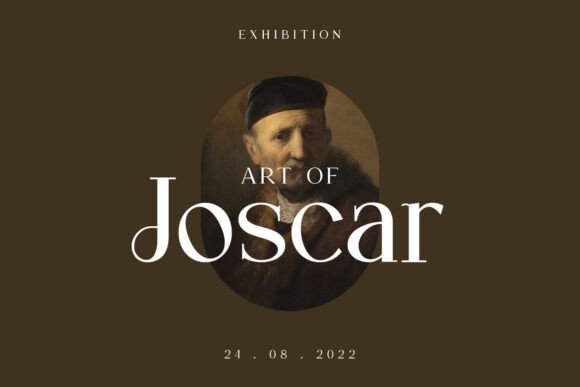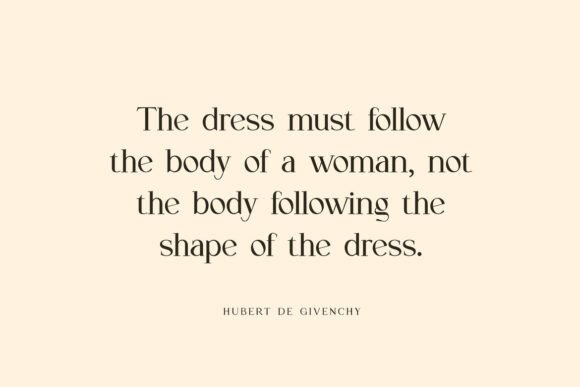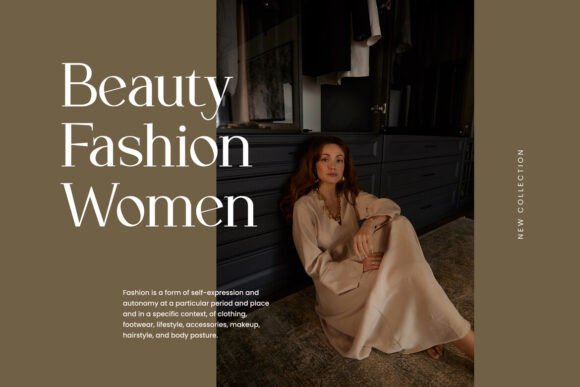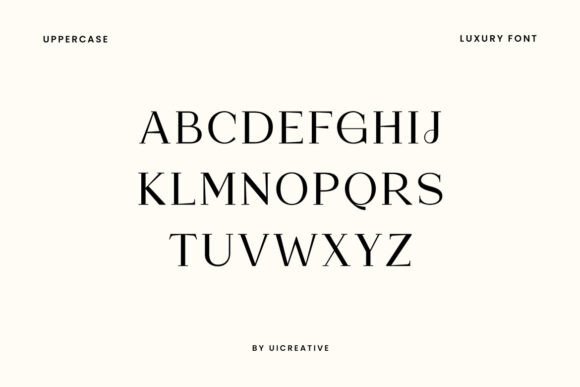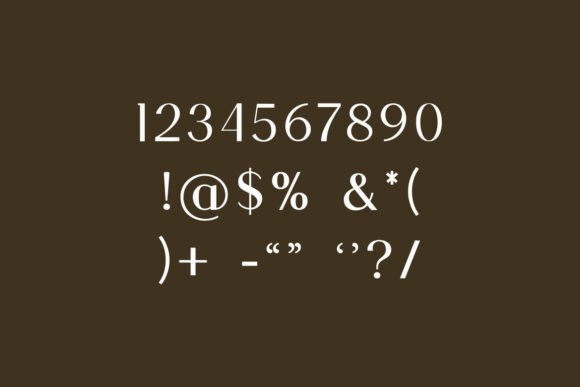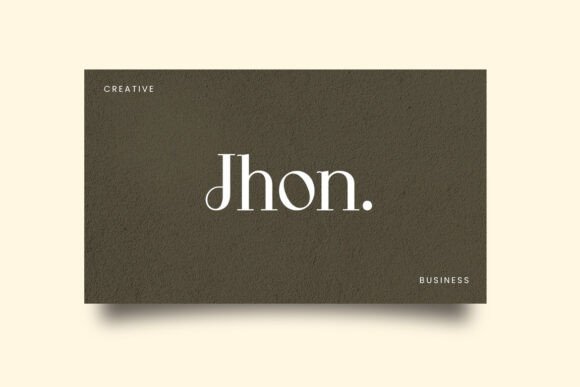
Introduction to Mythology Font
As you sit in front of your computer, surrounded by endless design possibilities, you know that sometimes the perfect font can make all the difference. It’s that one moment when a project comes together, and you can’t help but feel a sense of pride and accomplishment. For designers, finding the right font can be a game-changer, and that’s where the Mythology Font comes in.
This elegant and bold serif font is a treasure trove of creative possibilities. With its incredibly versatile style, you can use it to create stunning wedding invitations, beautiful stationery art, eye-catching social media posts, and much more. Whether you’re a seasoned pro or just starting out, the Mythology Font is a valuable design resource that’s sure to elevate your projects to the next level.
Imagine having access to a high-quality font that’s free to download and customize, with a transparent background that lets your creativity shine through. The Mythology Font is that and so much more, making it an essential design tool for any creative project.
Key Features of Mythology Font
- High-quality design: Mythology Font is a premium font designed for creative projects, offering a unique and sophisticated look.
- Perfect for creative projects: Mythology Font is designed to add a touch of elegance and sophistication to any creative project, from wedding invitations to branding materials.
Honest Review: Mythology Font
I recently had the chance to work with the Mythology Font, and I must say it’s been a game-changer for my creative projects. The font is free to download, which is always a bonus, and the high quality is evident from the first glance.
- ✨ The font’s unique design elements, such as the subtle texture and ornate details, make it perfect for adding a touch of elegance to any design.
- ✨ The transparent background option allows for seamless integration with other design elements, giving me more creative freedom.
- ✨ The font is highly versatile and can be used for a wide range of design projects, from invitations to branding materials.
- ⚠️ The font may not be suitable for all types of projects, particularly those that require a more modern or minimalist look.
- ⚠️ Some users may find the font’s complexity overwhelming, but I personally find it refreshing.
Overall, I’m thoroughly impressed with the Mythology Font. It’s a valuable addition to any design resource library, and I’ll definitely be using it for future projects.
The Mythology Font is ideal for use in creative projects, such as book covers, posters, and business cards. It is also suitable for use in presentations, reports, and other documents where a touch of sophistication is desired.